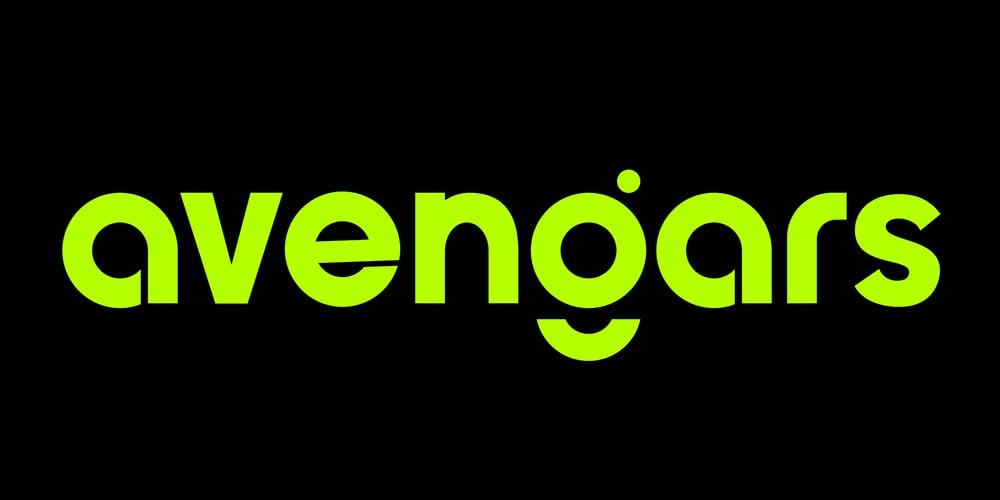
Avengars Font Family was designed by Muhammad Afif Ersya and published by Mevstory Studio. Avengars contains 2 styles and family package options. Avengars is a modern and chic typeface, best used as a display for headings, logos, branding, magazines, product packaging and invitations. Avengarscome with clean lines and smooth curves give any project an extra touch of class.If there’s anything else you are unsure of feel free to pop me a message :)That’s it! Have fun using Avengars Typeface!!!Feel free to follow, like and share. Thanks so much for checking out my shop!